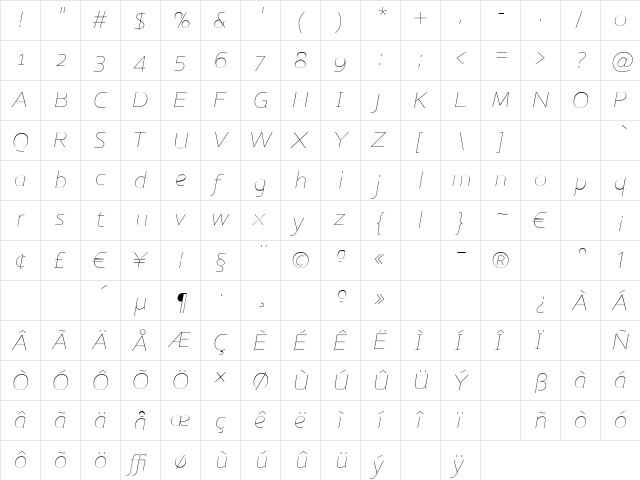
NubianThinItalic Regular
Design Context for NubianThinItalic Typeface
NubianThinItalic takes a measured approach to typography — its balanced proportions and neutral character make it a reliable workhorse for both digital and print work. The dynamic lean of this cut emphasises speed and emphasis in any layout. Its slender proportions lend an understated elegance to any composition.
Pro Tip: Try NubianThinItalic for annotation and caption copy alongside an upright companion — the contrast in angle creates a dynamic but ordered typographic system.